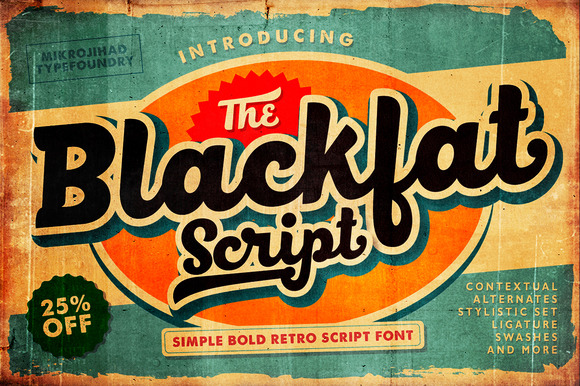
Journey into the realm of typography with Blackfat Script, a bold retro script font that oozes elegance and sophistication. This captivating creation by Mikrojihad Typefounder is more than just a font; it's an artistic expression that will transform your designs into captivating masterpieces.
Immerse yourself in the world of retro charm, where nostalgia meets modernity. Blackfat Script's bold lines and sweeping curves evoke a sense of timelessness, while its contemporary twist keeps it relevant and fresh. Unleash your creativity and let the font's unique personality shine through in your designs.
With Blackfat Script, versatility knows no bounds. Whether you're crafting eye-catching headings, designing stunning posters, or seeking the perfect touch for t-shirts, logos, labels, or book covers, this font is your ultimate companion. Its adaptability makes it a must-have in any designer's toolkit, ensuring that your projects stand out from the crowd.
Capture attention and leave a lasting impression with Blackfat Script. Its bold presence commands attention, while its intricate details add a touch of intrigue and sophistication. Let your designs speak volumes, captivating your audience with a font that refuses to be ignored.
Embrace the power of expression and make a statement with Blackfat Script. Its meticulously crafted characters convey emotions and set the tone for your creative endeavors. Whether you're aiming for a vintage vibe, a modern aesthetic, or anything in between, this font has the versatility to bring your vision to life.
Don't settle for ordinary fonts. Choose Blackfat Script and embark on a typographic adventure where boldness meets beauty. Elevate your designs, captivate your audience, and let your creativity soar.